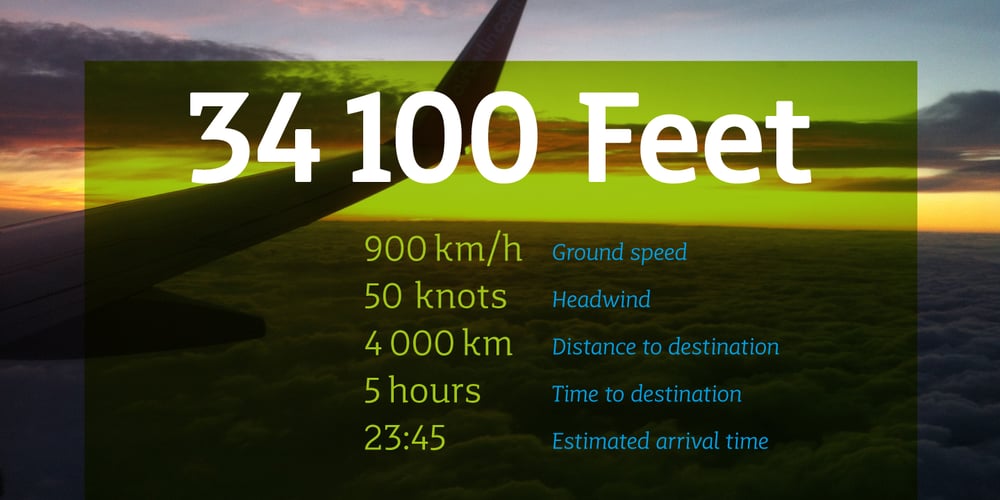
Mir Font Family was designed by Julia Sysmäläinen and published by Juliasys. Mir contains 6 styles and family package options. Мир is Mir. The Russian word Мир (Mir) means both World and Peace. The rendezvous of the two terms seems quite unique and utopistic today, but it is comforting to see that it was natural at some time deep down in Russian history. Bits of both meanings were going through my mind while I was designing this typeface. Mir’s character set is multiscript – Latin, Cyrillic and Greek – and extends to many parts of the linguistic world. In fact it covers more than 100 languages. Stylistic consistency between the language systems make typographic border crossings painless even where national borders are still closely guarded. And in regions where mathematics, physics or chemistry are to be expressed, a rich set of OpenType features lets Mir master also these situations. Serious things are best be said in a relaxed, unpretentious way. So Mir doesn’t put on a show. Mir has authority without being authoritarian, it is serious but not stern. It can explain difficult things and stay calm and down to earth at the same time. Mir Medium has another useful feature: It can be freely downloaded and used by anybody anywhere. You can test the Mir Family with free Mir Medium and get more styles when you need them. @juliasys